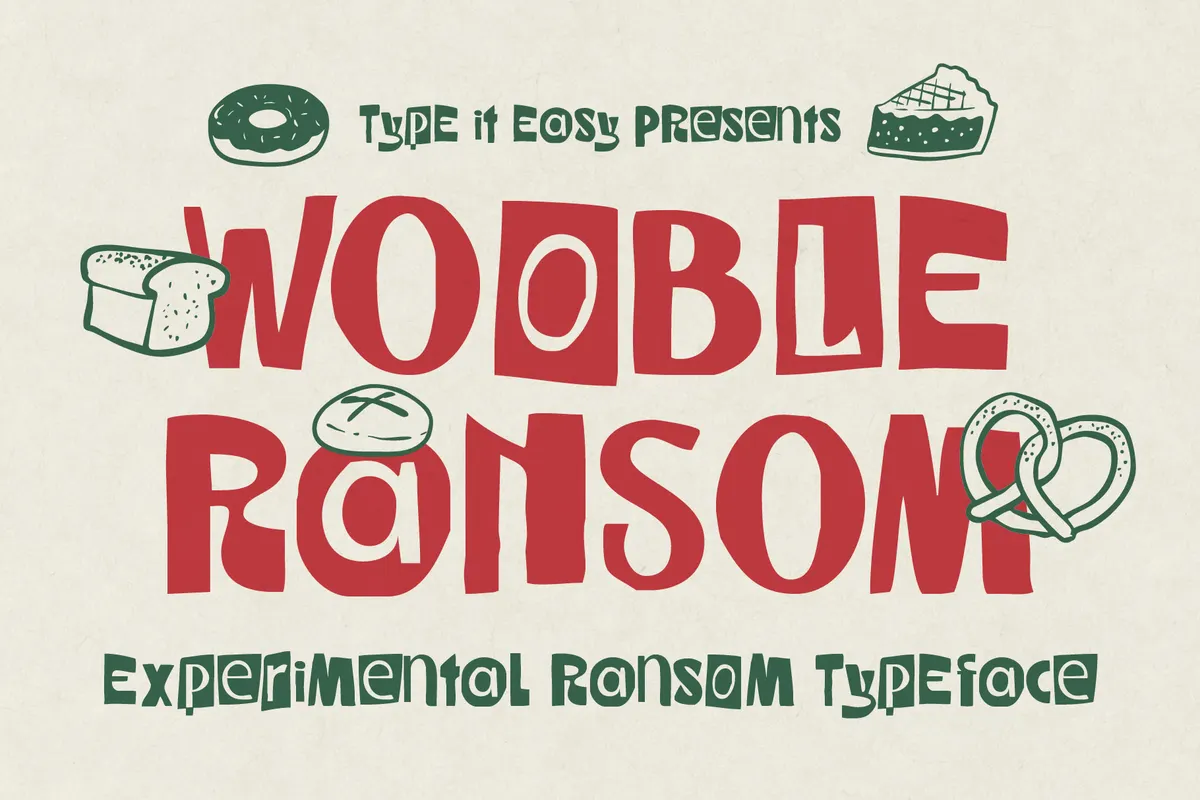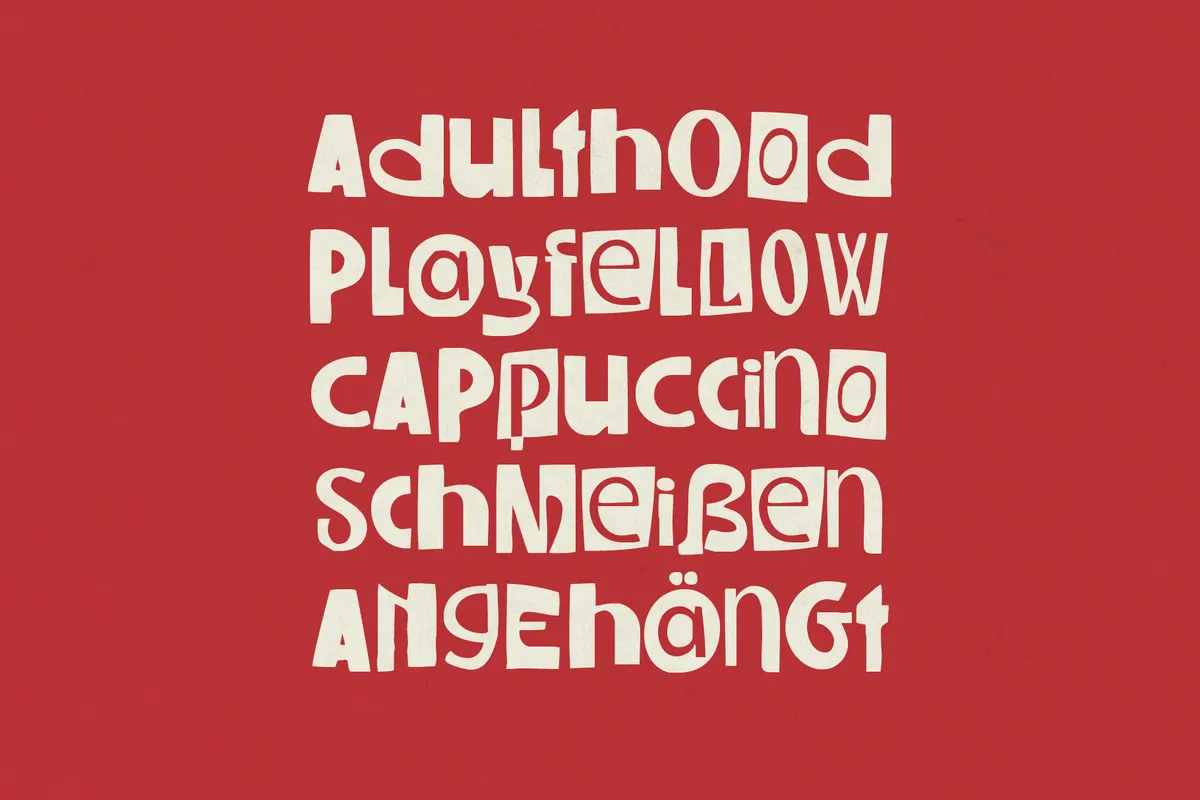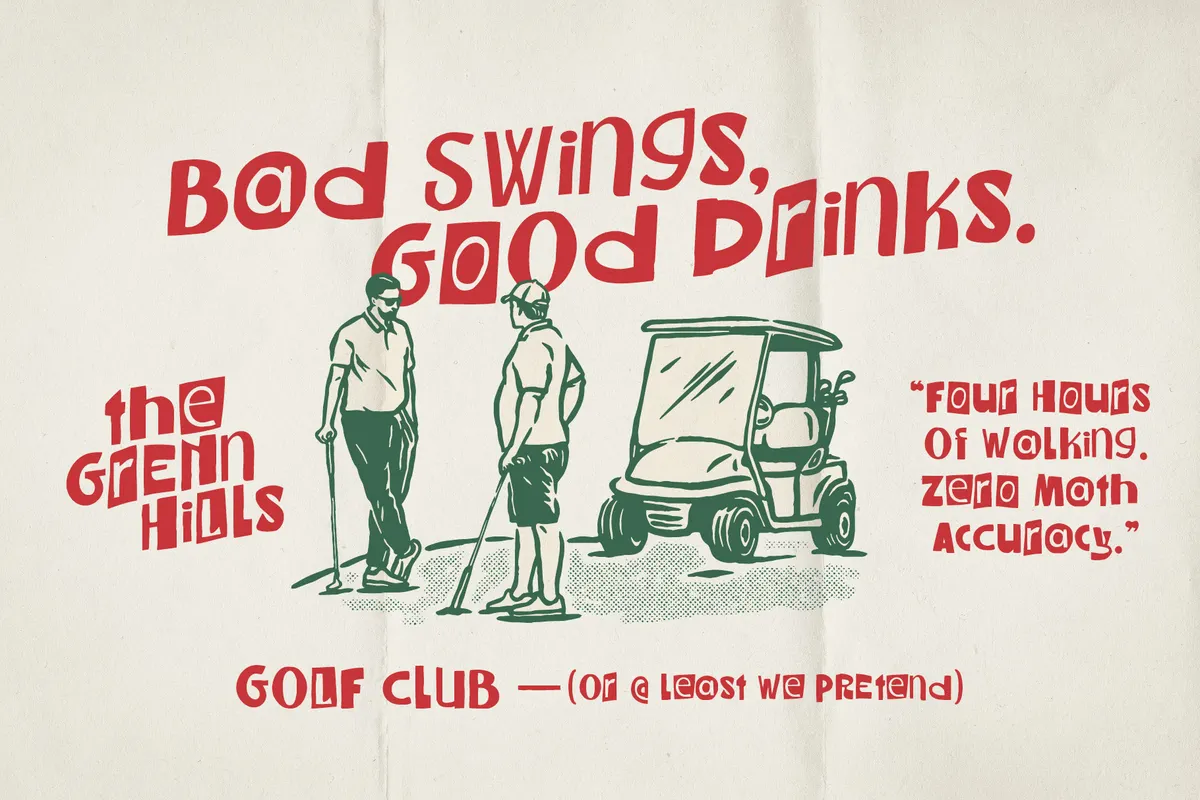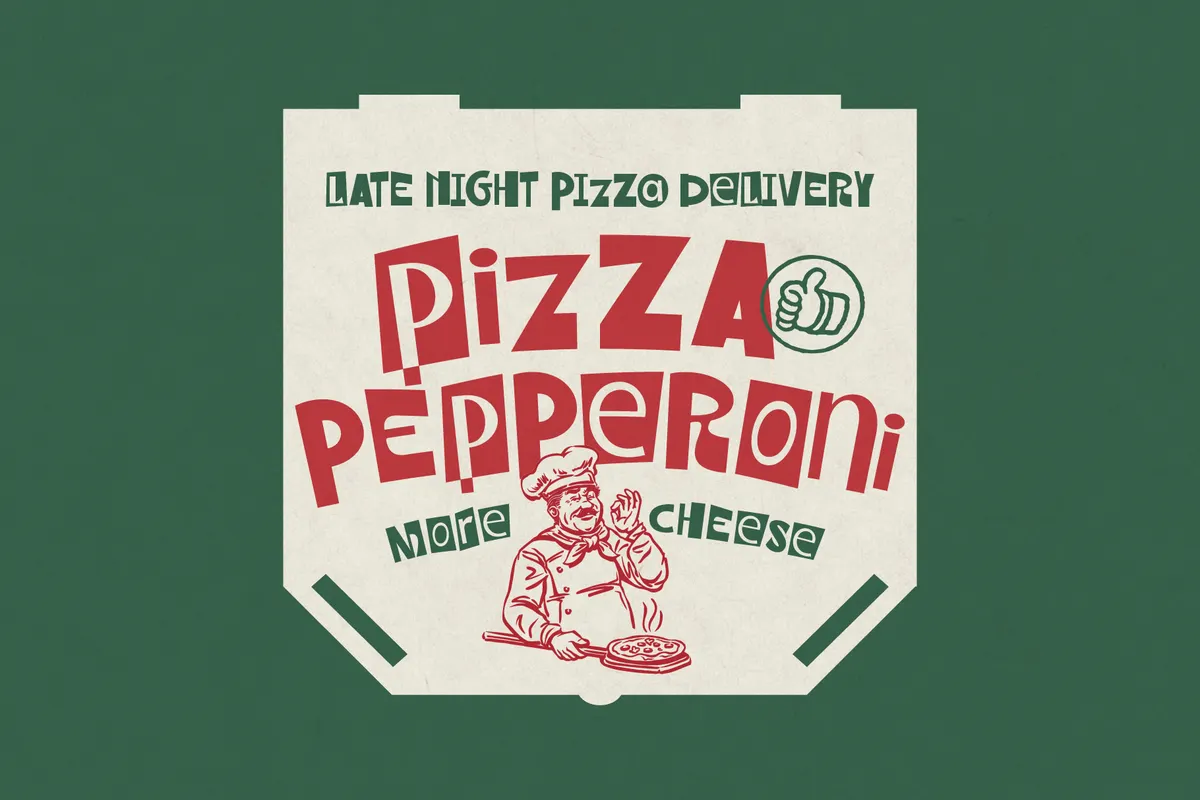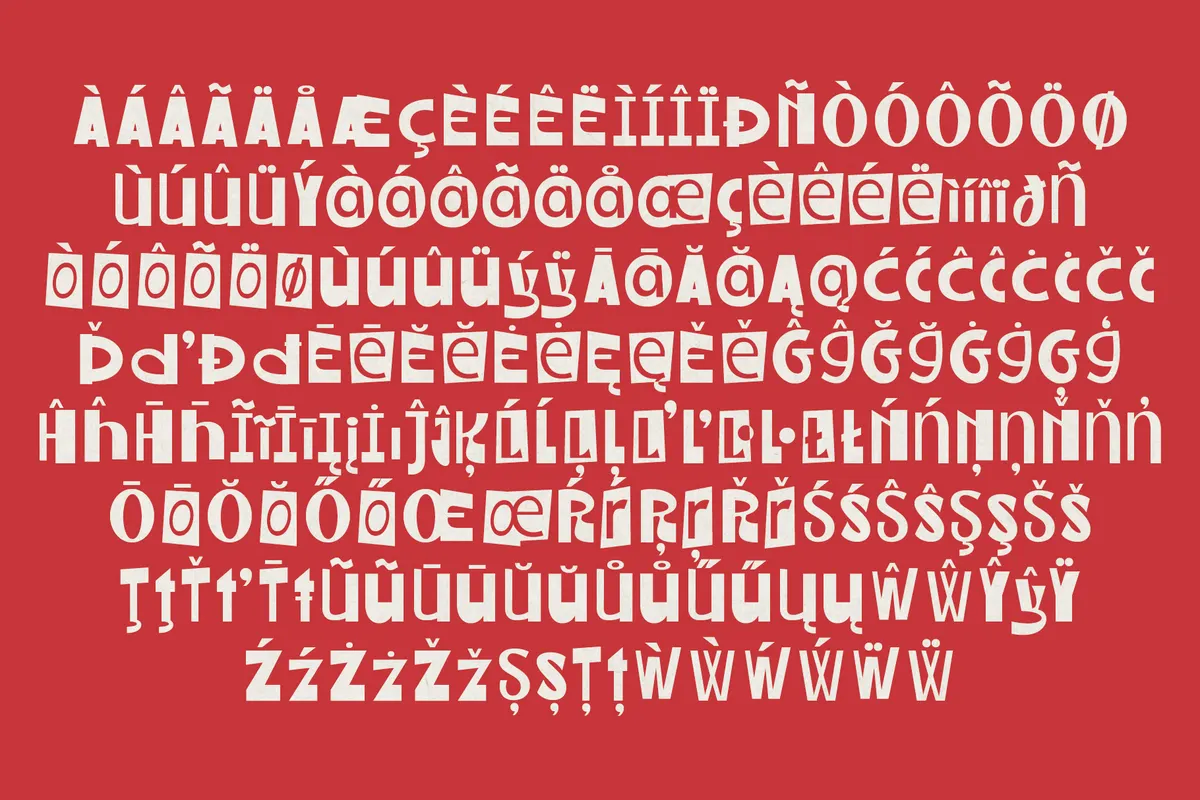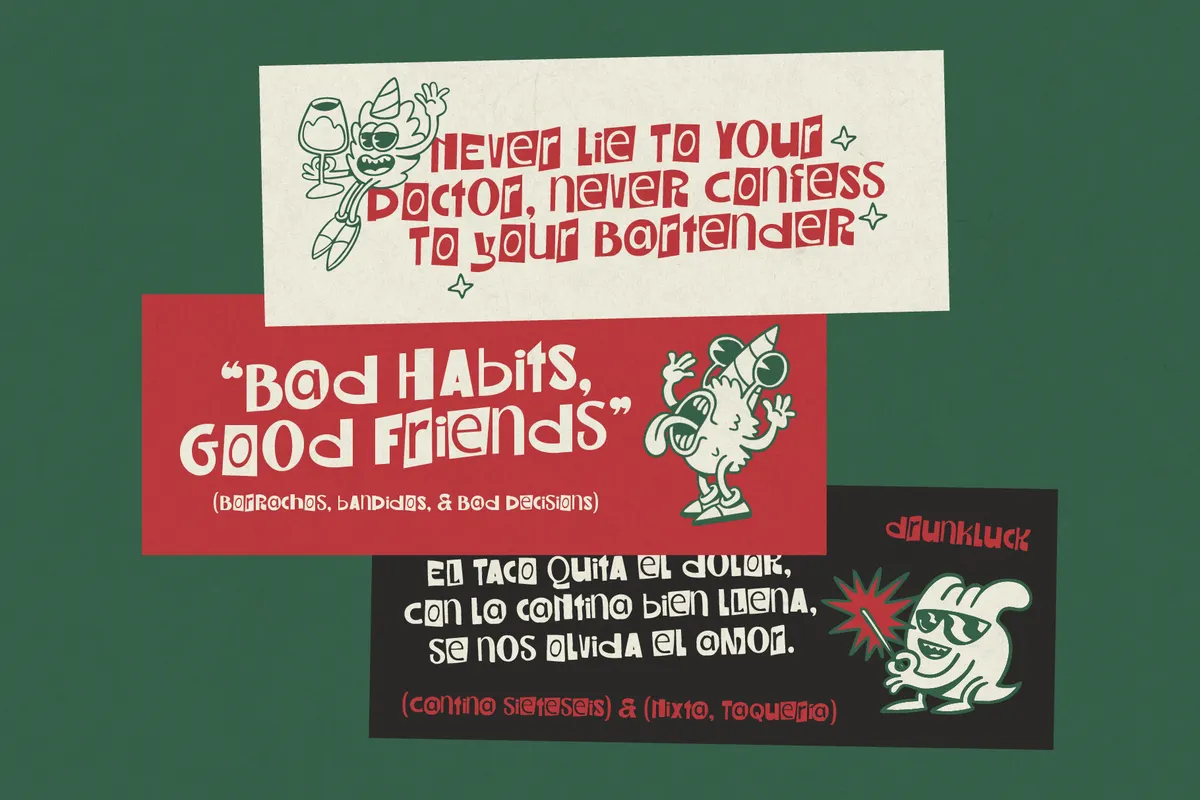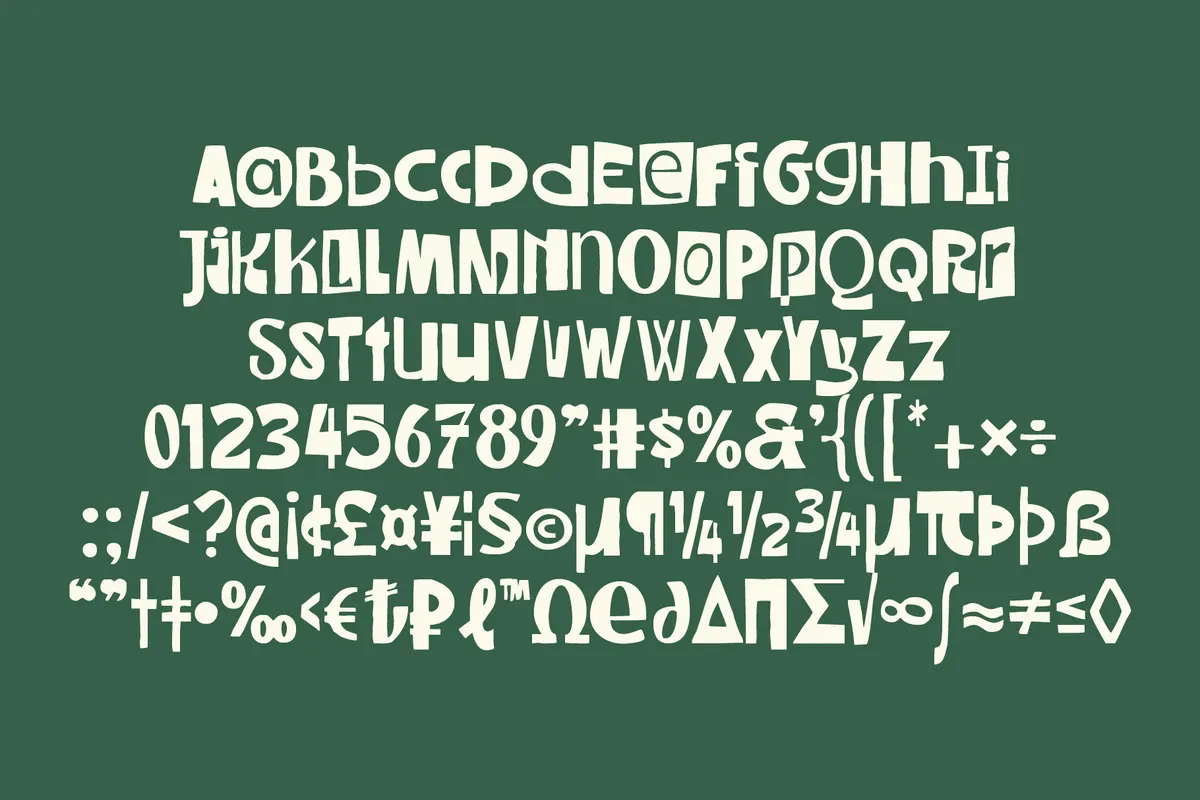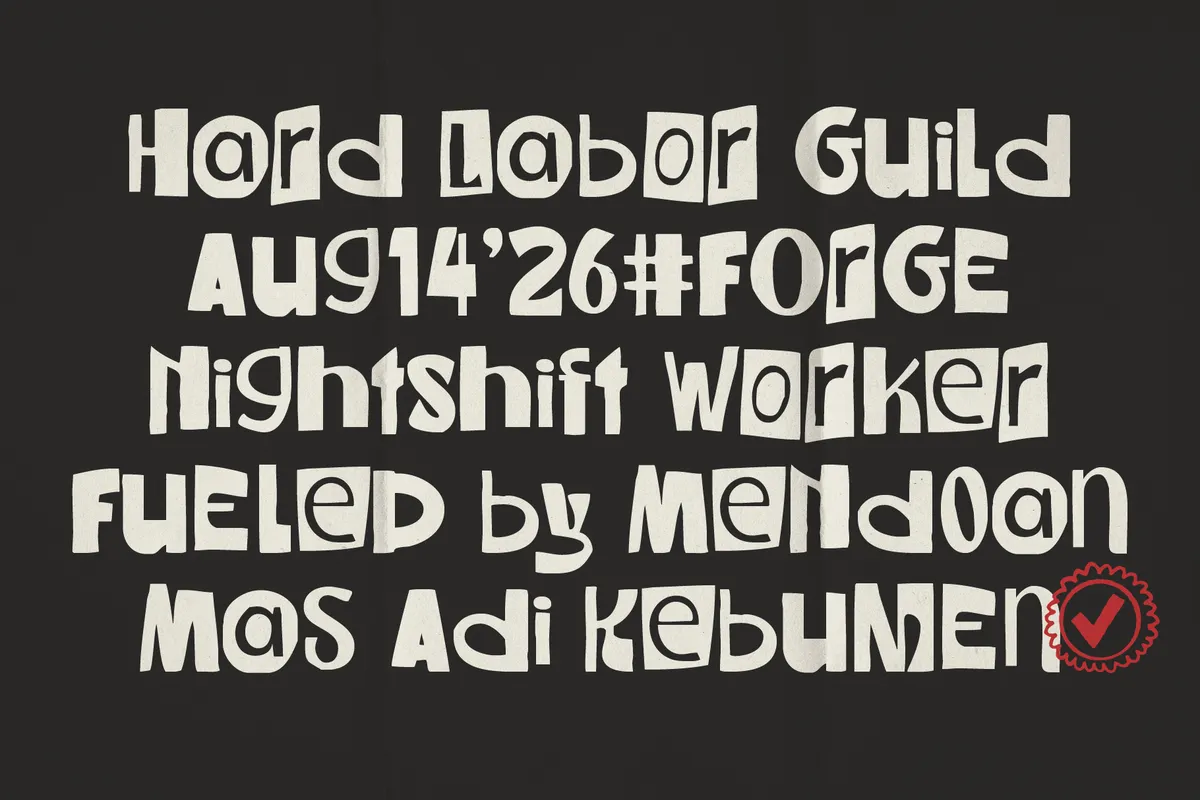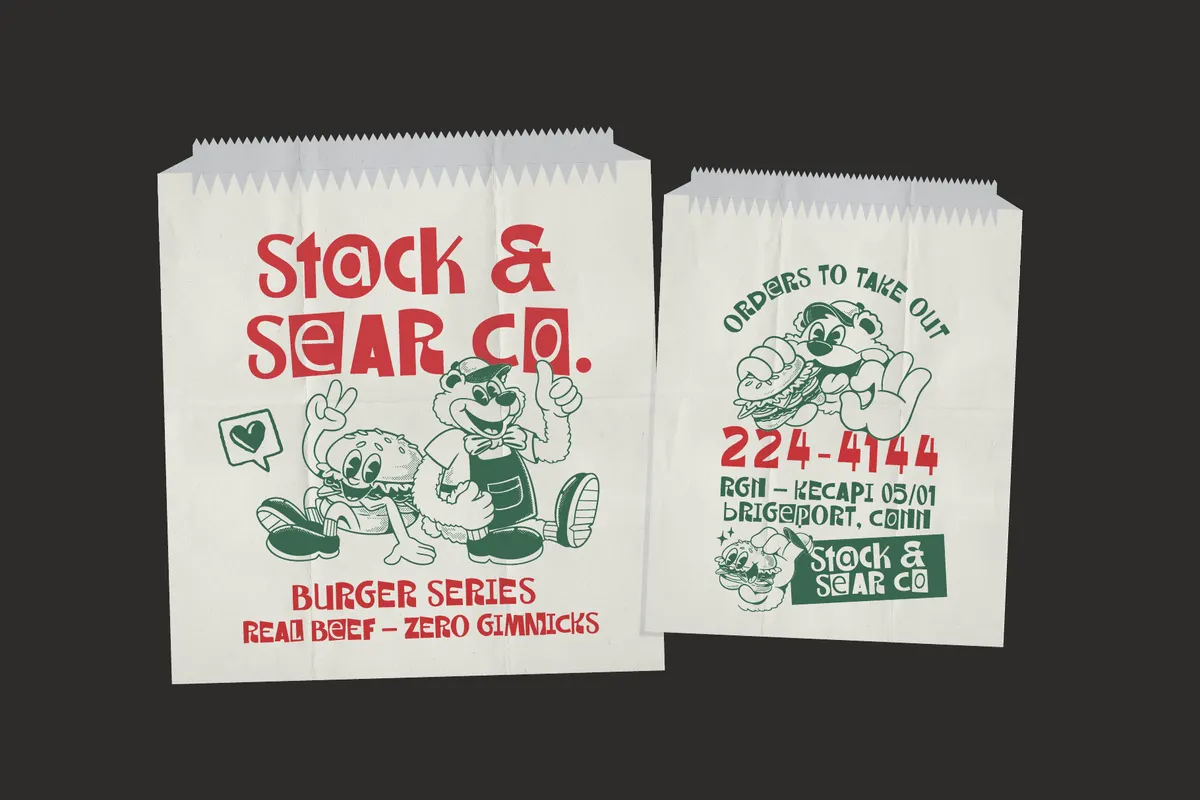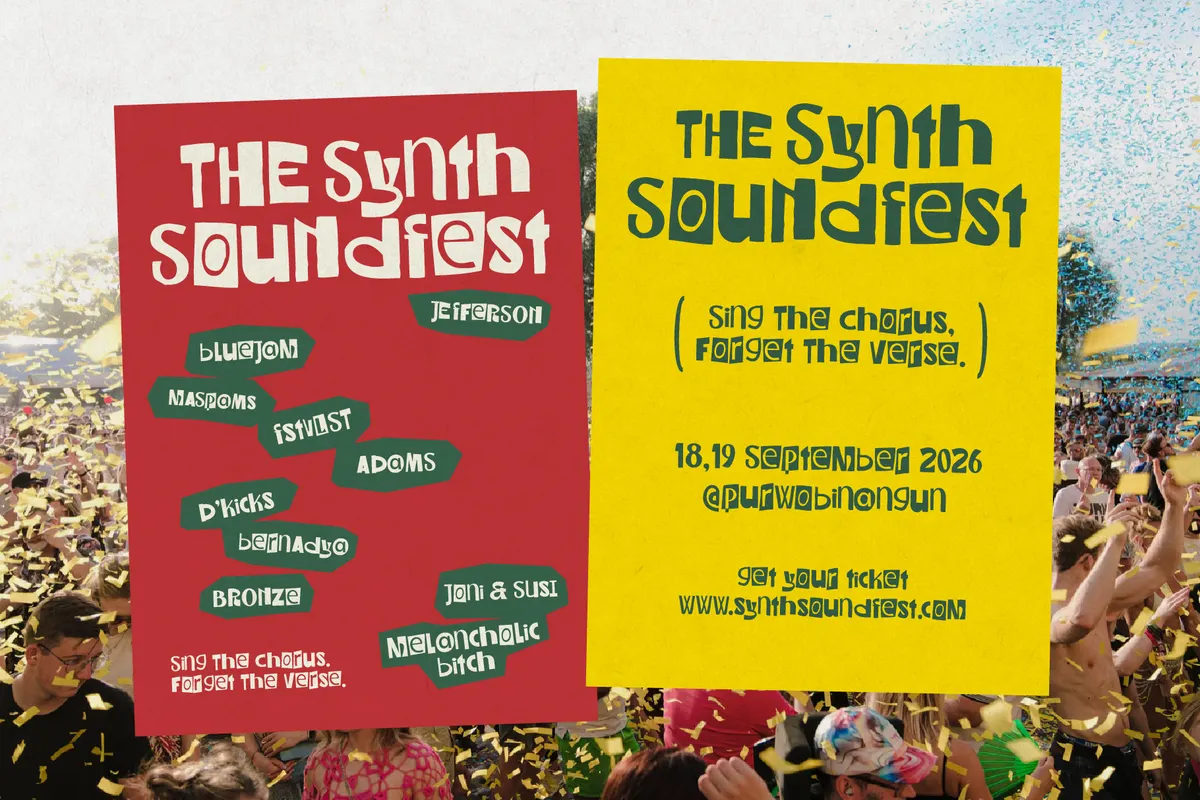
Wooble Ransom - Playful Ransom-Note Display Font
Wooble Ransom is a playful ransom-note display font built from chunky paper-cut block letters, bouncy off-kilter baselines, and dough-soft rounded silhouettes.
The set ships in two takes — a clean-cut Regular and a Rough companion with a scratchy, worn edge — so the same wonky rhythm can sit crisp on a poster or textured on a bakery label. Use it for bakery and snack packaging, gig posters, zine covers, album art, café and diner branding, food truck menus, retro logo lockups, event merch, kids' brand identities, and social headlines.
• 2 styles: Regular, Rough;
• uppercase & lowercase;
• numerals, punctuation & symbols;
• ligatures, fractions, superscript numerals & ordinal forms;
• multilingual support;